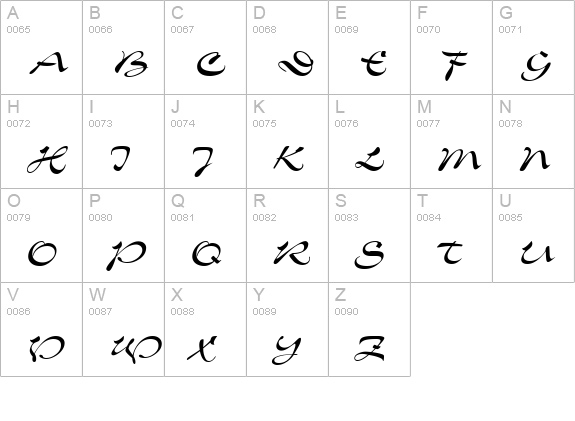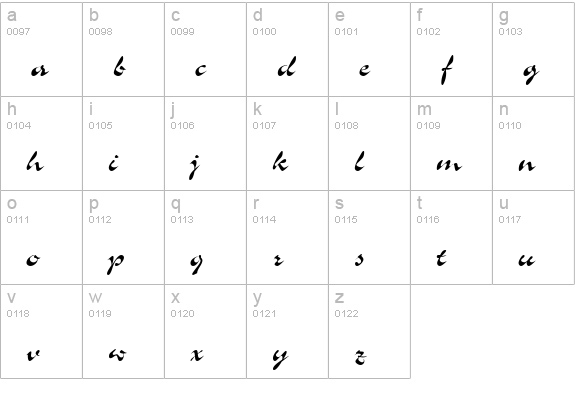
TR Shogun Font Details
Introducing TR Shogun font - a bold and dynamic typeface that exudes power and elegance. With its strong lines and sharp edges, TR Shogun font is perfect for headlines, titles, and branding projects that demand attention. This versatile font captures the essence of traditional Japanese calligraphy while adding a modern twist. Best of all, TR Shogun font is available for free download at FontsMarket.com. Whether you're a designer looking to add a unique touch to your projects or a creative individual seeking a standout font for personal use, TR Shogun font is the perfect choice. Download it today and unleash its striking beauty in your designs!